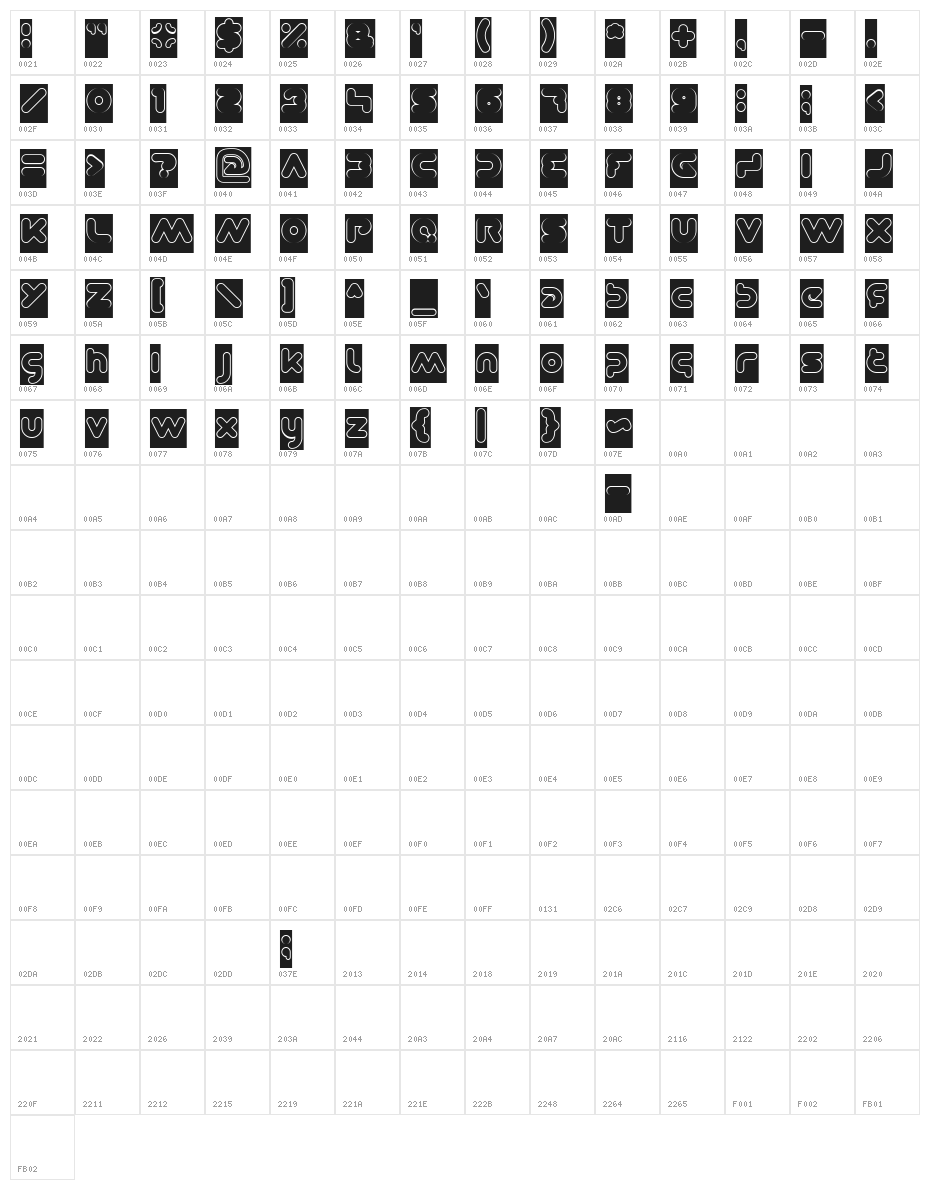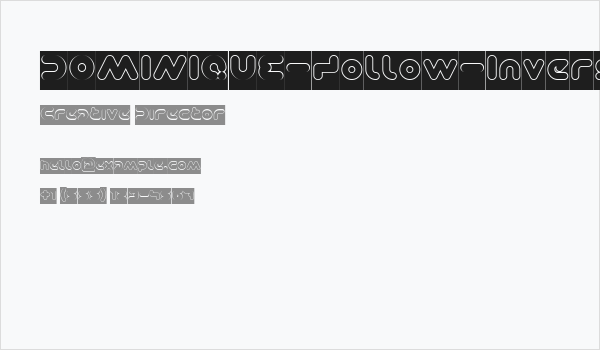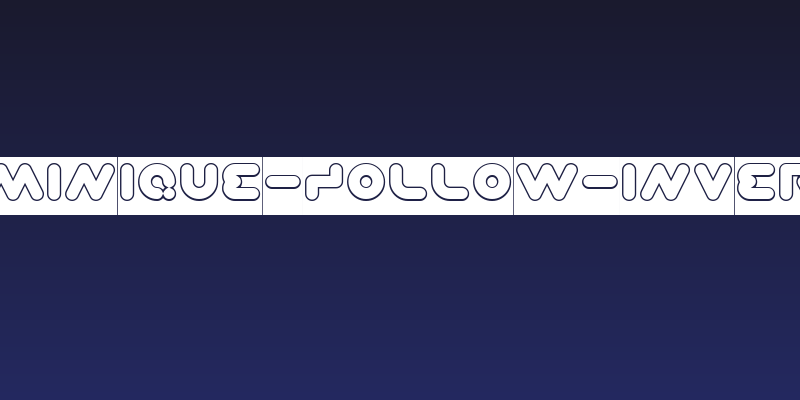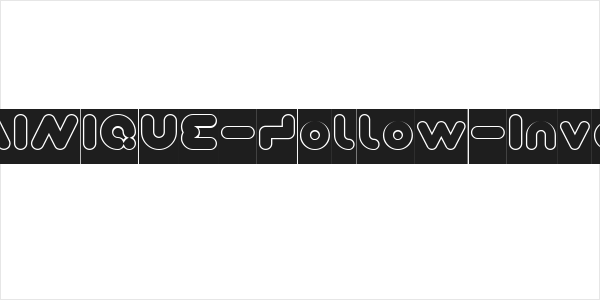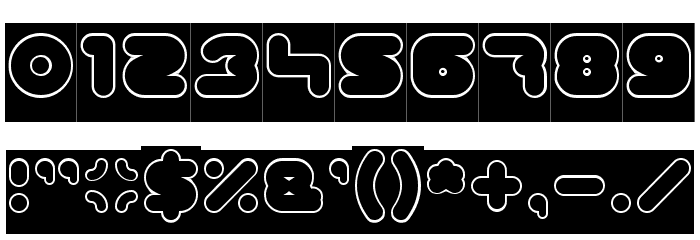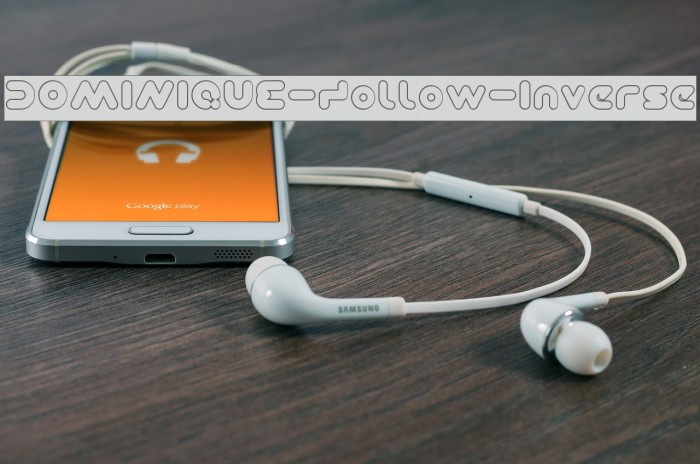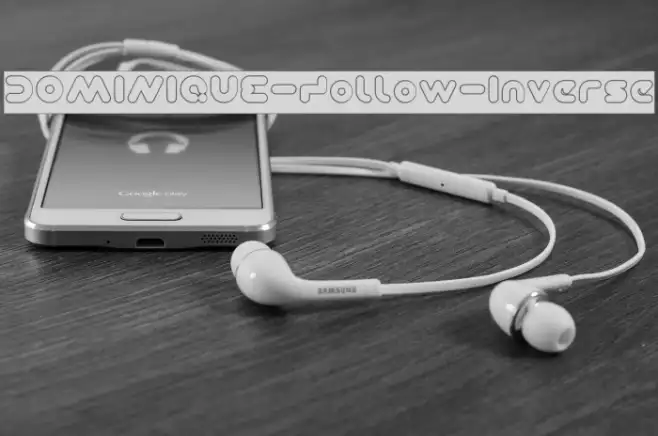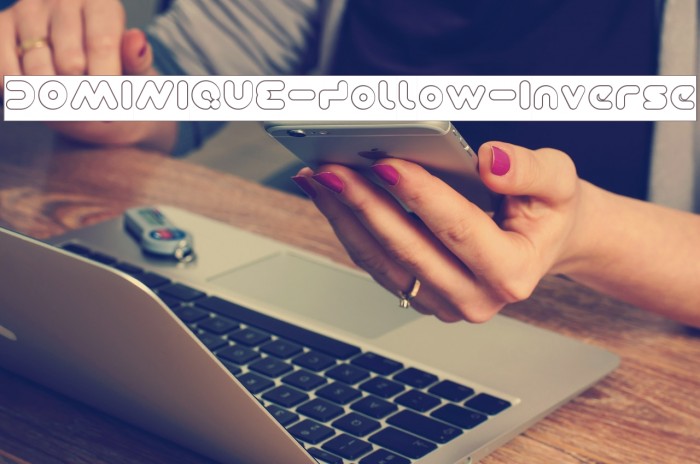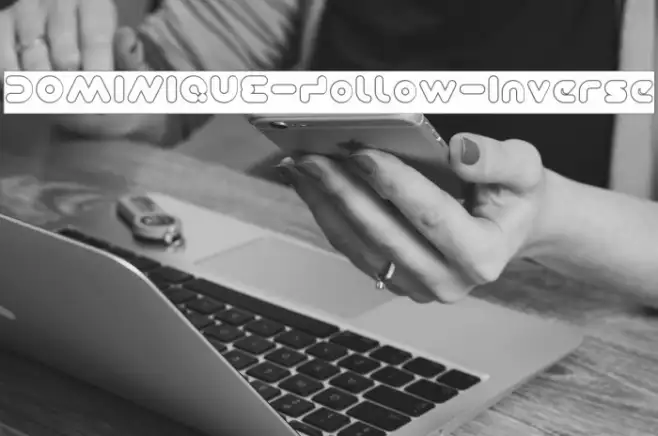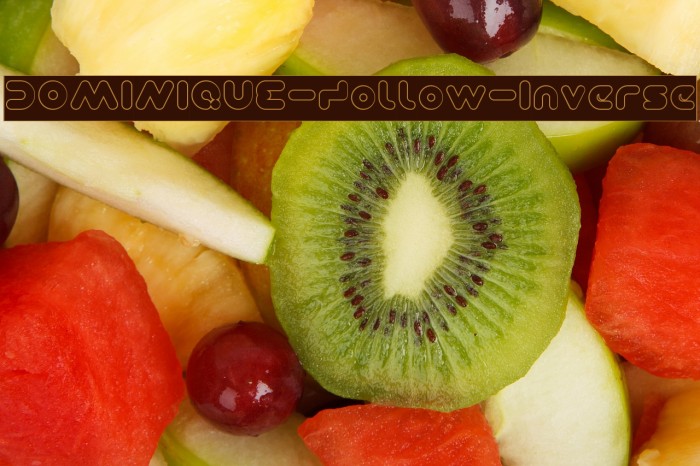
DOMINIQUE-Hollow-Inverse Font
DOMINIQUE-Hollow-Inverse Description
This font features a unique hollow design with an inverse style, creating a striking visual effect. The characters are outlined with a consistent thickness, giving them a bold appearance despite the hollow centers. The geometric shapes and rounded edges contribute to a modern and playful aesthetic. Each letter and number is distinct, with a uniform height and width that ensures readability. The special characters maintain the same hollow and outlined style, integrating seamlessly with the rest of the font. This font is ideal for projects that require a bold statement while maintaining a light-hearted and contemporary feel.